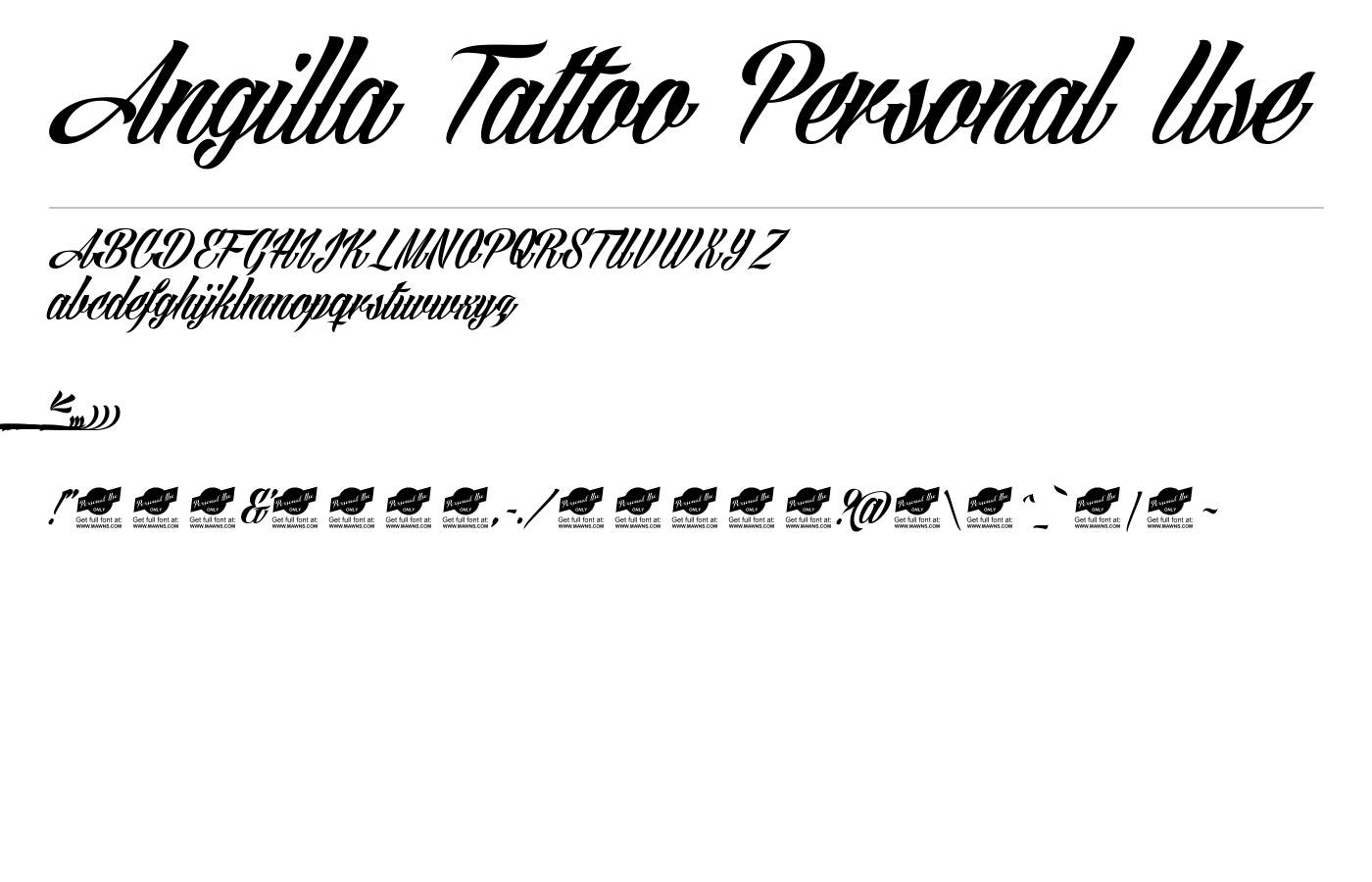
Angilla Tattoo Personal Use is an elegant script font characterized by its bold, flowing strokes and dramatic slant, giving it a dynamic and artistic feel. With its high contrast between thick and thin lines and distinctive calligraphic shapes, this font conveys a strong, expressive personality ideal for tattoo designs, logos, and creative branding where a stylish, personal touch is desired. It works best in larger sizes to showcase its intricate details and stylish flair.
Angilla Tattoo Personal Use Font
About Angilla Tattoo Personal Use Font
| Font family | Angilla Tattoo Personal Use Font |
| Designer | MÂns Greb‰ck |